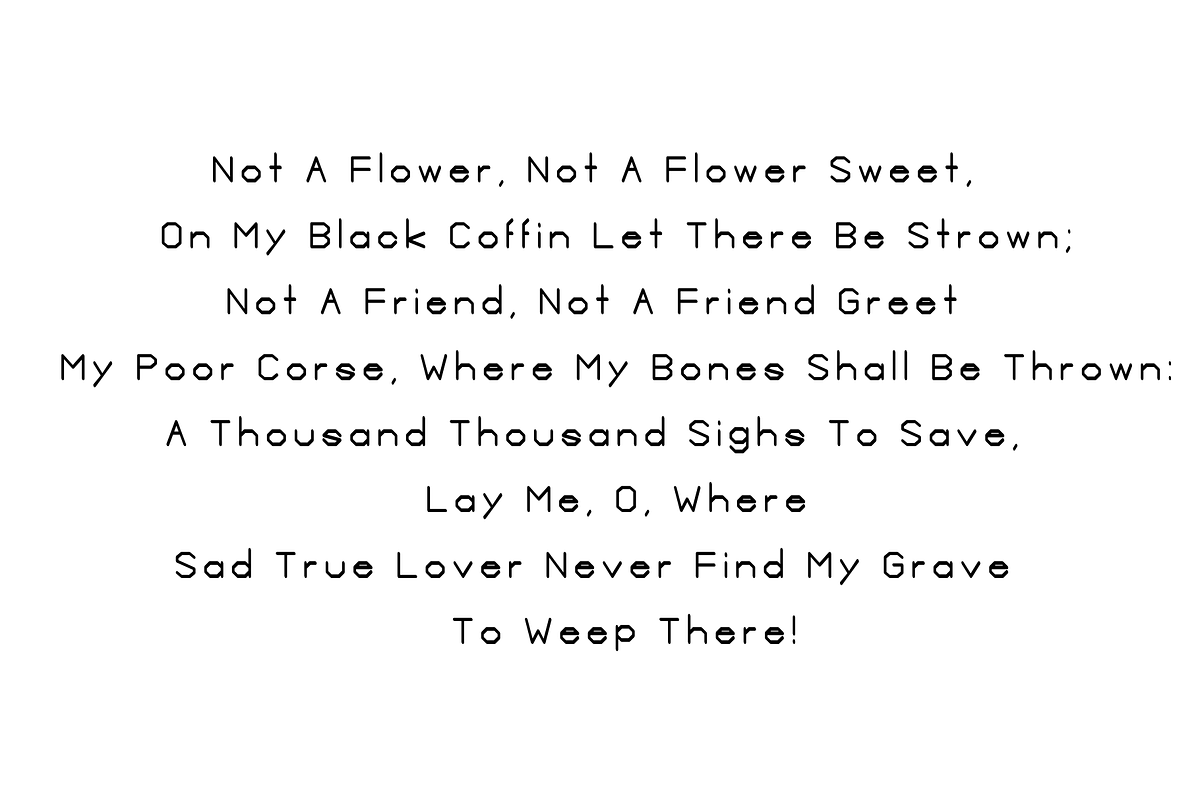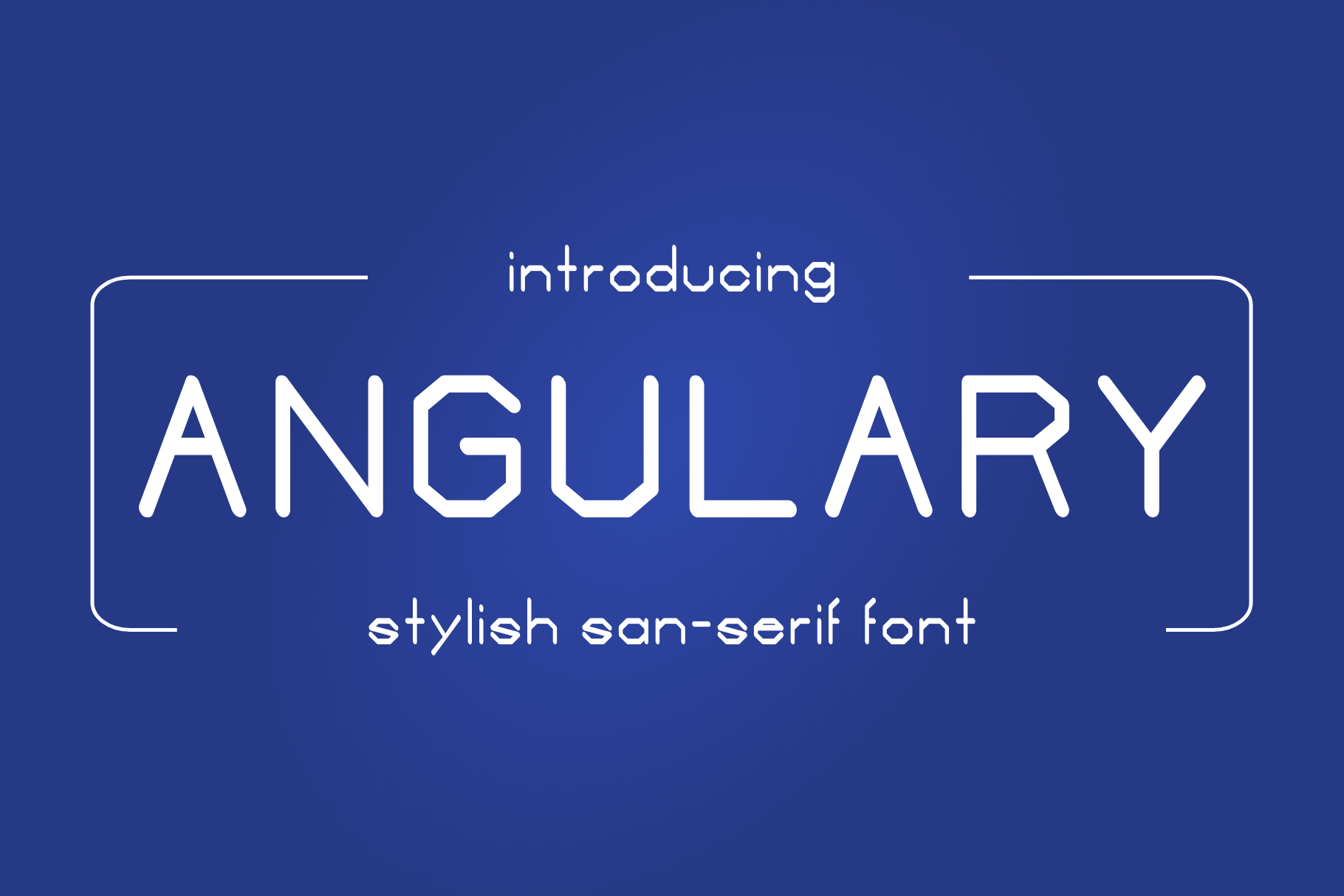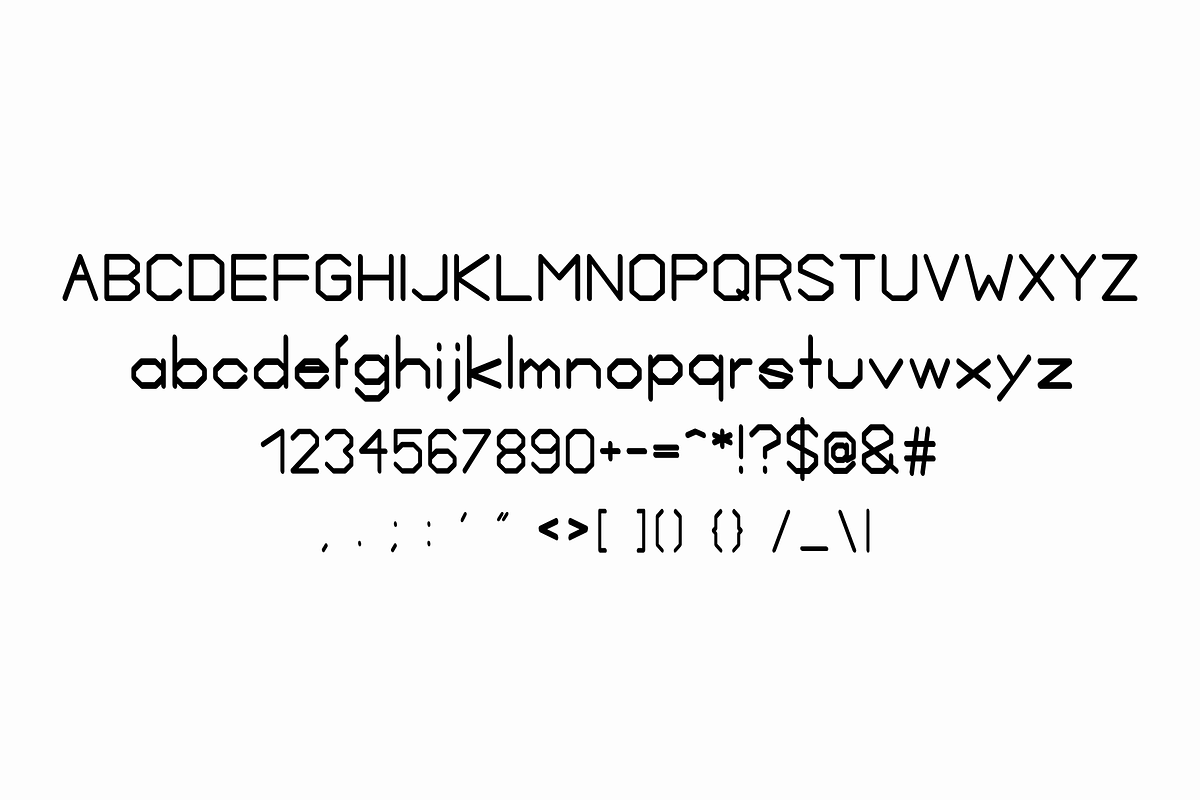
Angulary - Modern Typeface
Angulary - beautifully crafted modern typeface ready for your awesome projects.
- Consistency
- Well organized
- Easy to use